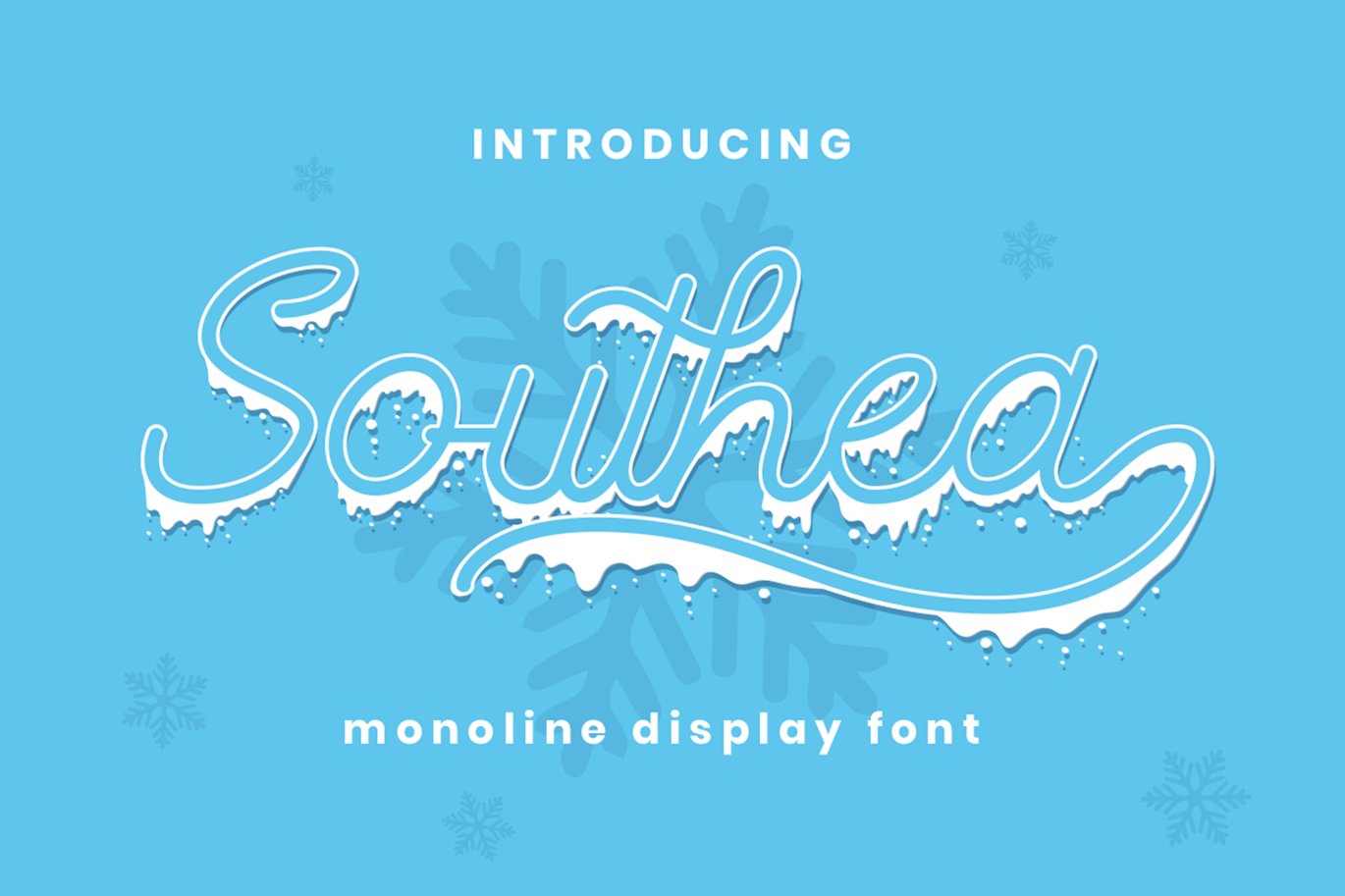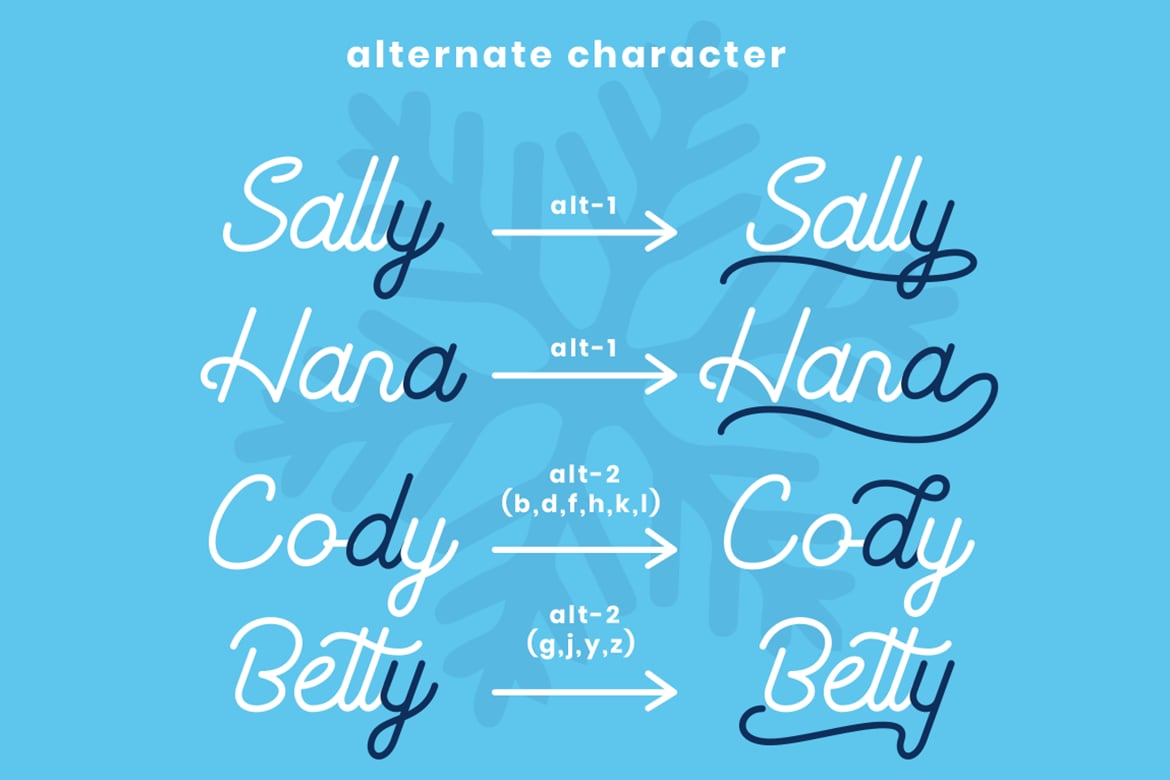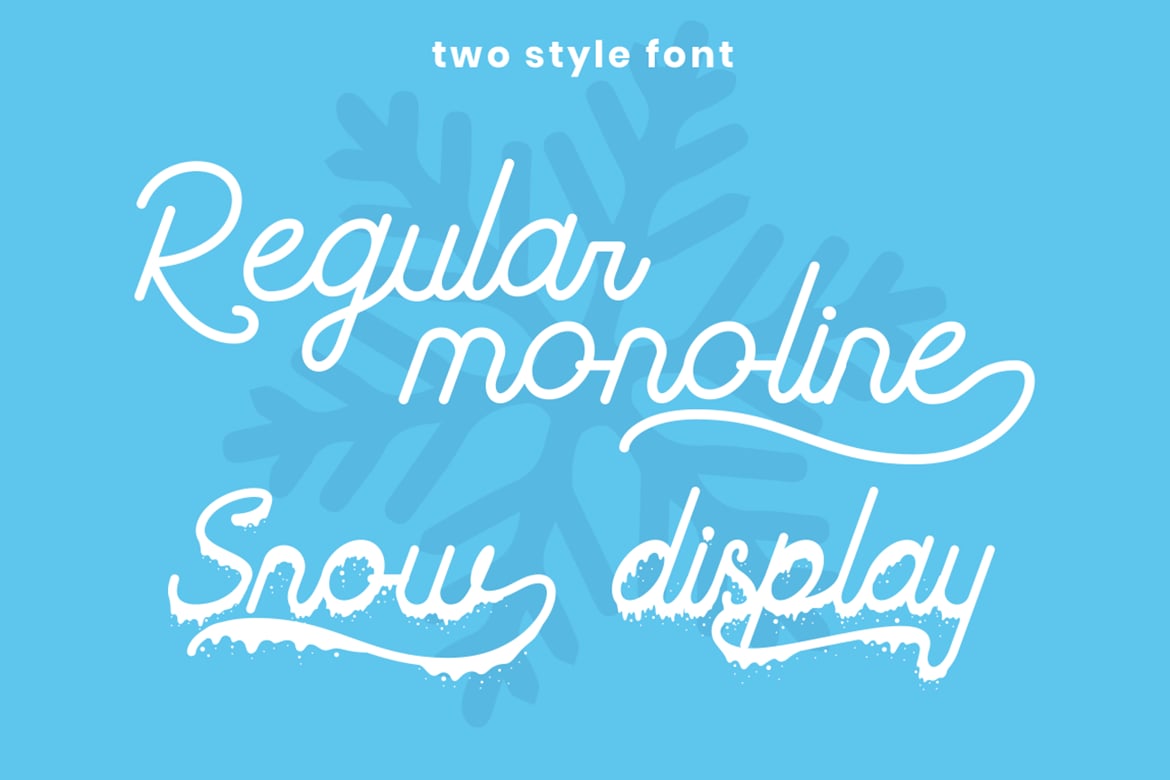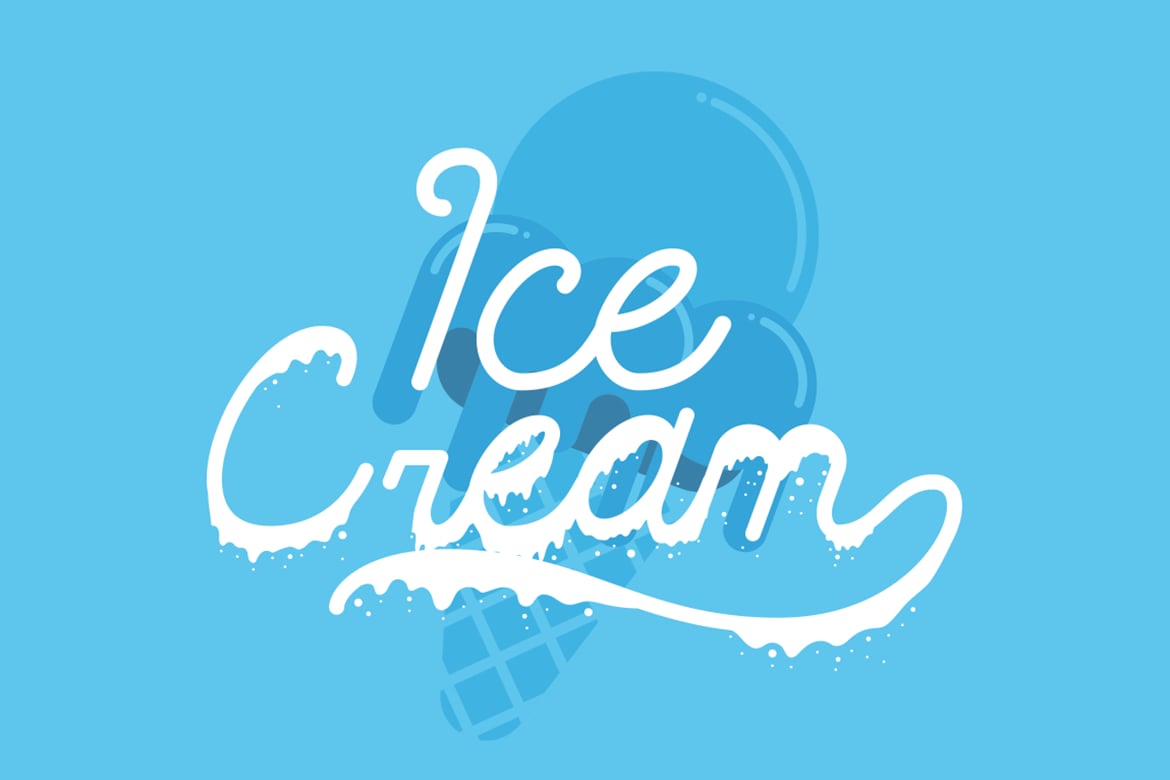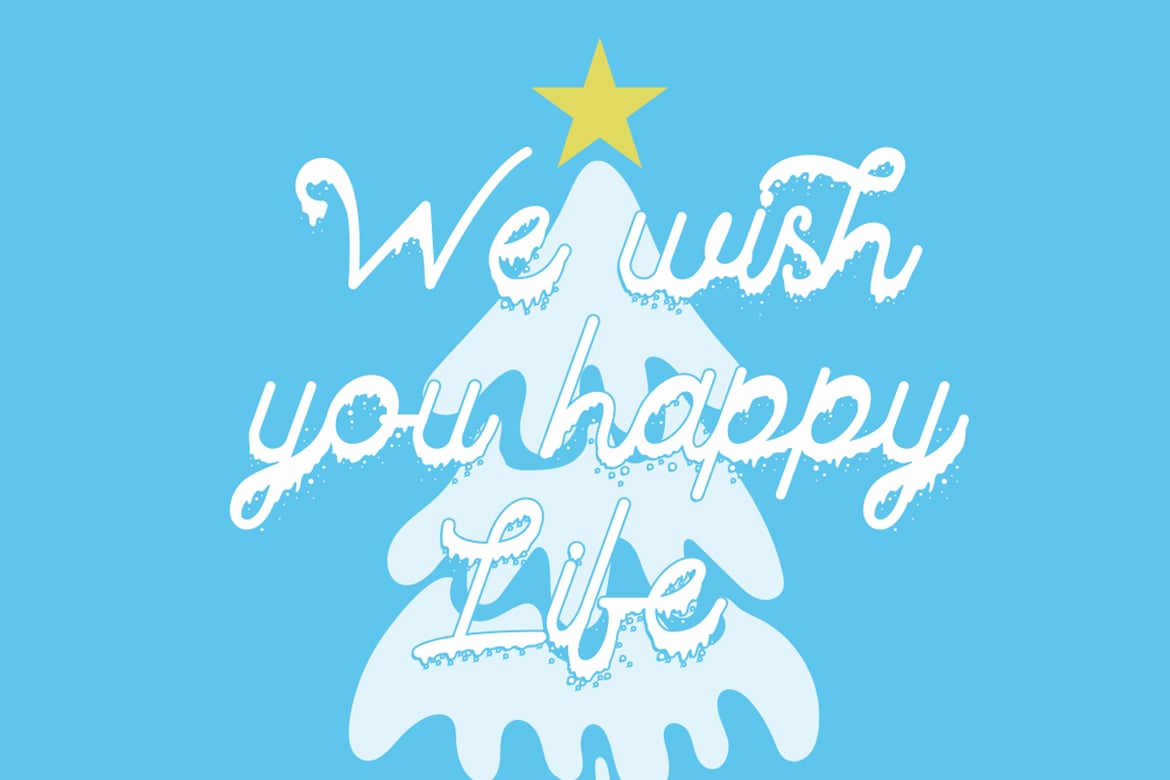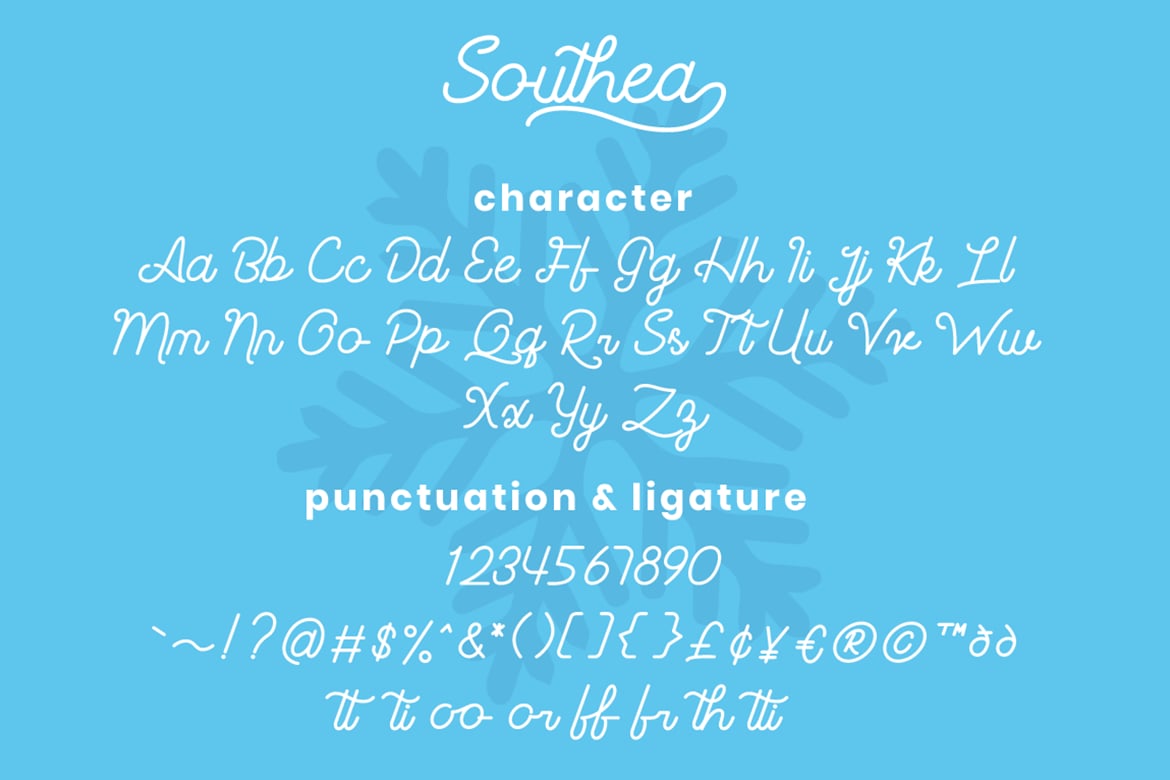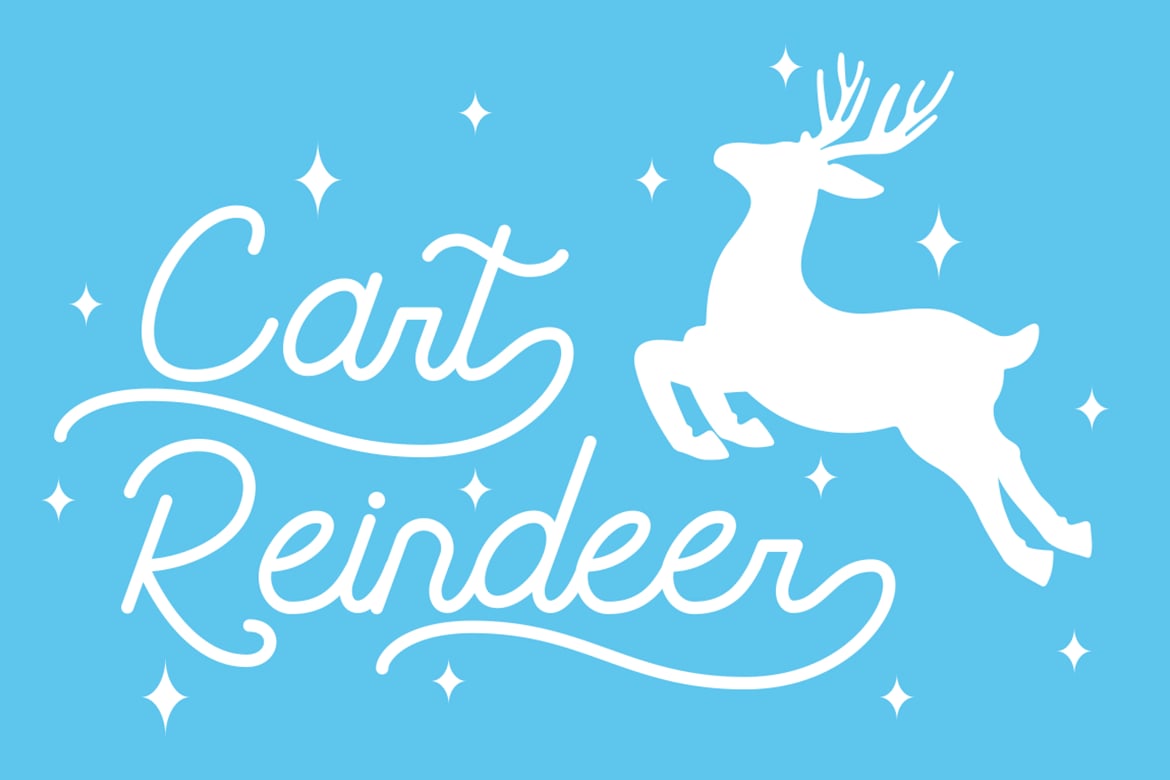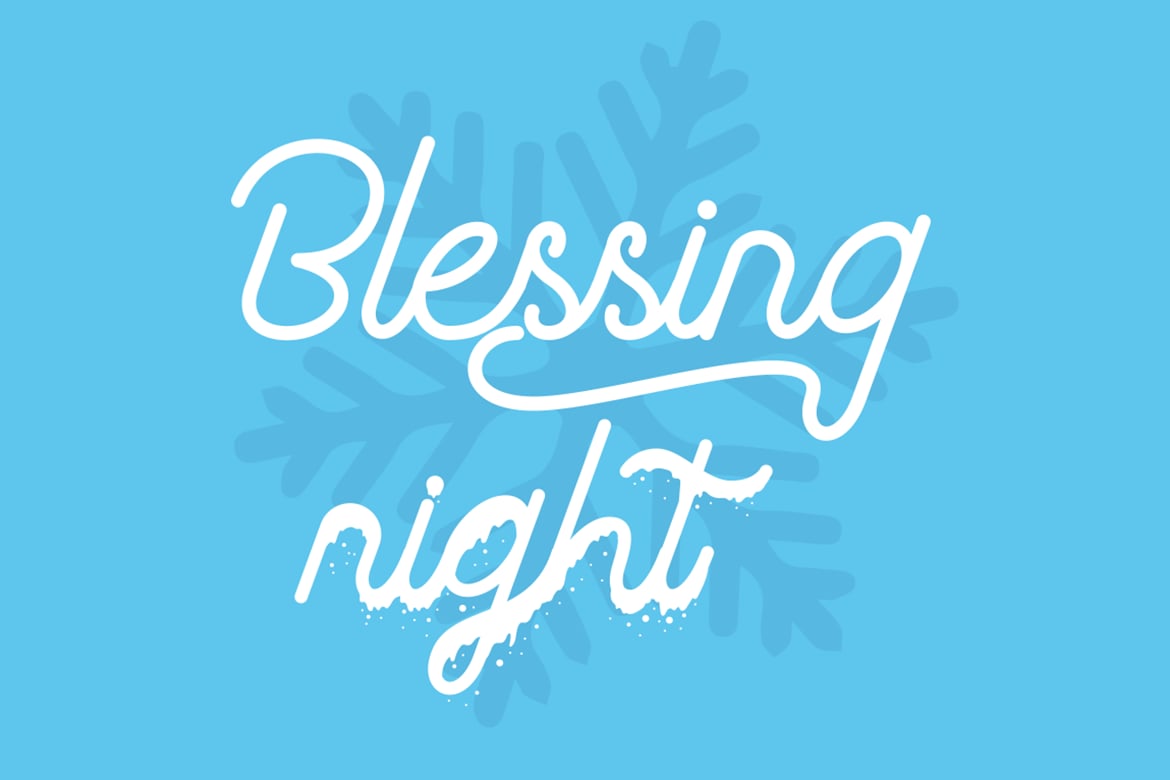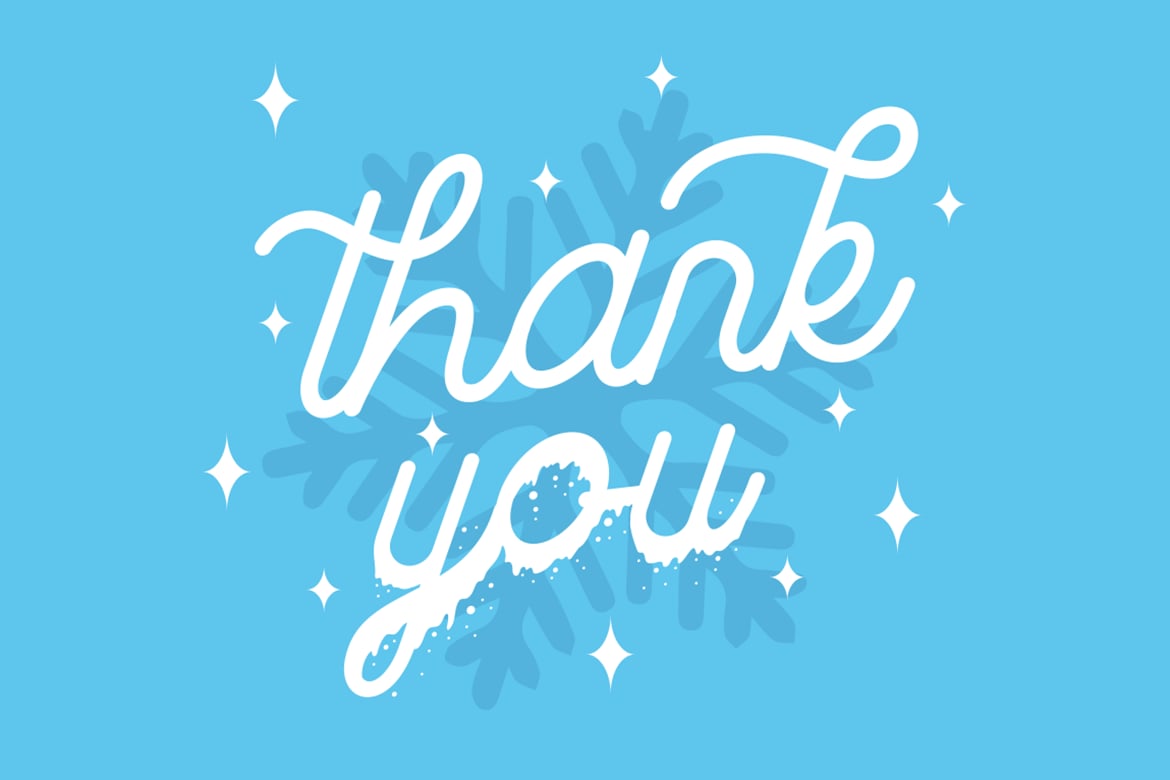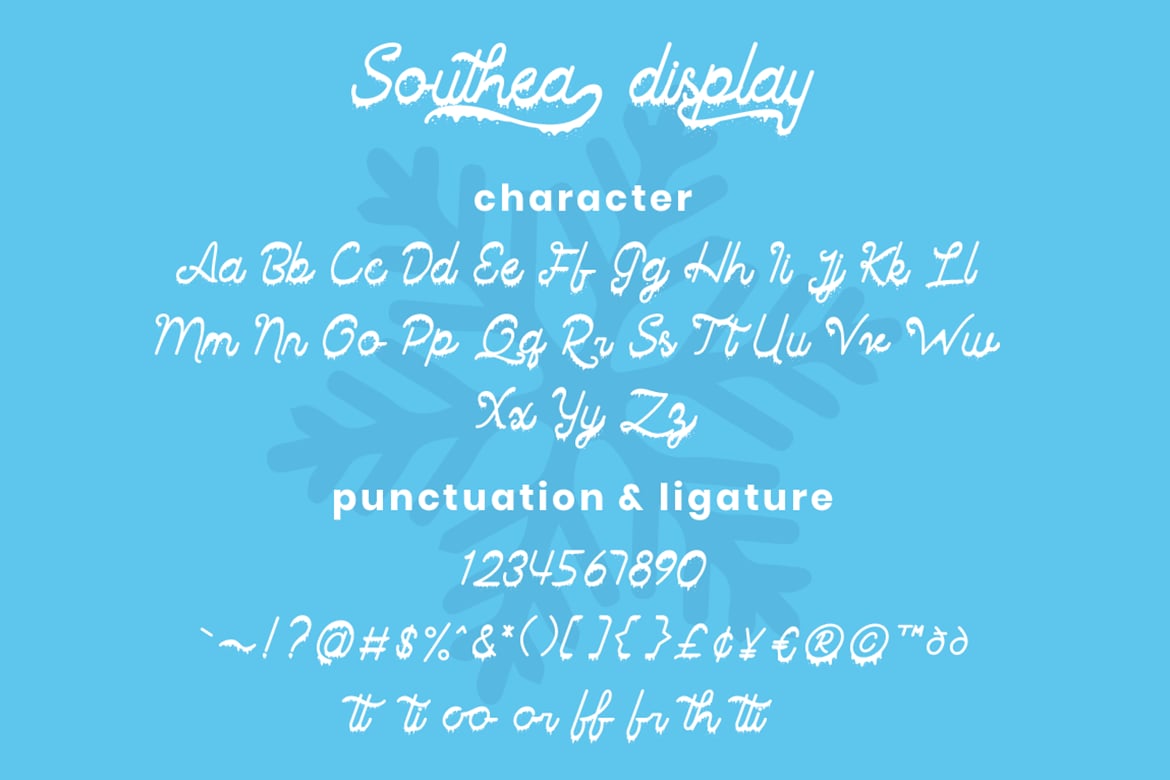
Southea – Winter Font
Southea is a winter monoline display font, come with 2 style regular and display.
Southea font perfectly macth for winter and christmas theme design like banner, book cover, t-shirt, branding, promotion, social media post, handwritten quotes and more.